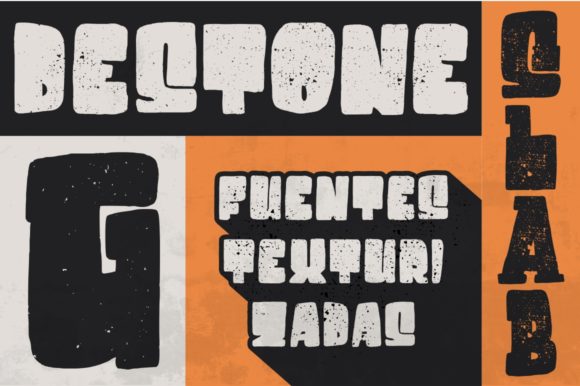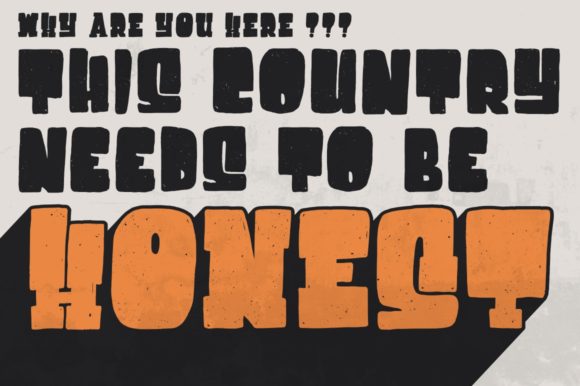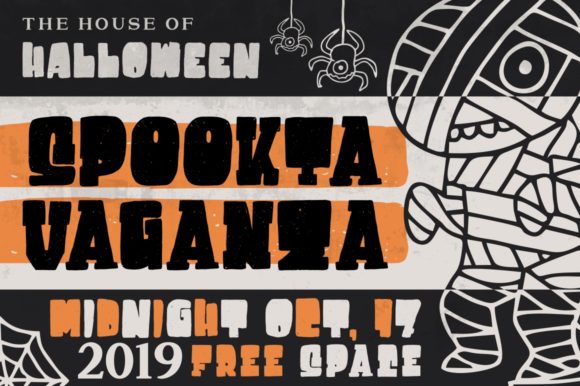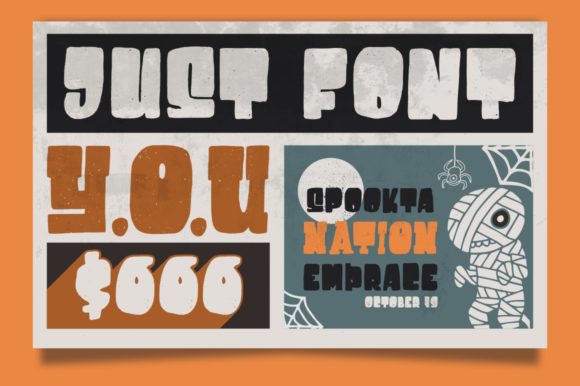
Destone Font
About the Destone Font
Unleash your creativity with Destone Font, a versatile font perfect for a wide range of applications. Destone is a slab serif font that combines attractive curves with a fresh urban edge. Get inspired by its contemporary coolness!
Destone’s strong, yet subtly rounded forms make it ideal for headlines, branding applications, and short impactful statements on posters or packaging. Its urban edge lends itself well to projects with a contemporary feel, particularly those in fashion, technology, or street-style culture. However, its slab serifs and relatively high x-height make it less suitable for extended body copy or UI elements where high readability is paramount.
For optimal visual balance, pair Destone with a clean sans-serif like Open Sans for body text or a more geometric sans-serif such as Futura for a modern, high-contrast look. A delicate script font could also add a touch of elegance to headings while maintaining Destone’s urban personality.
Destone projects an overall bold and modern personality, conveying confidence and a sense of contemporary style. Avoid pairing it with overly ornate or overly playful fonts which would clash with its refined urban aesthetic.